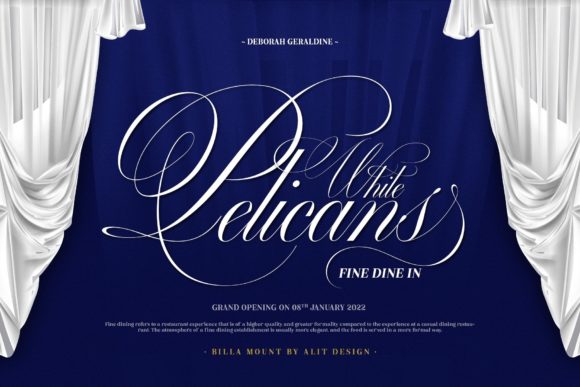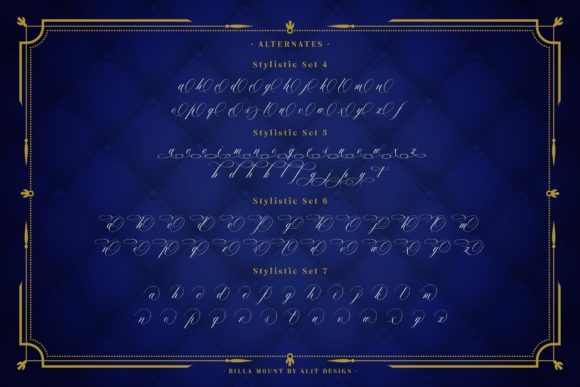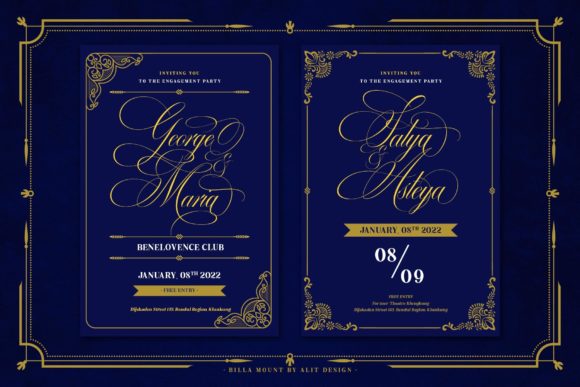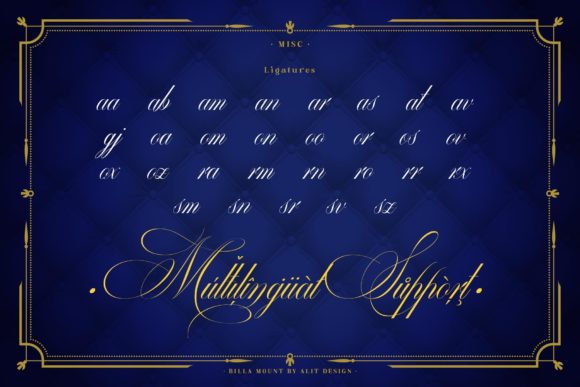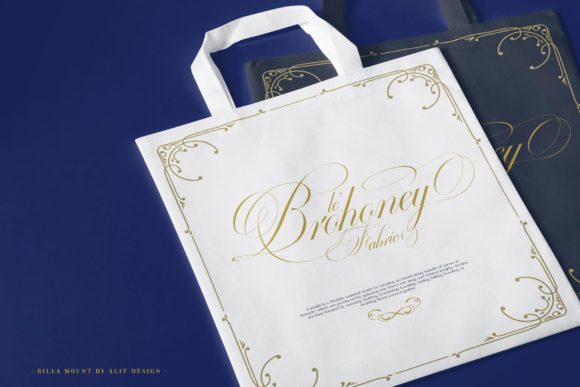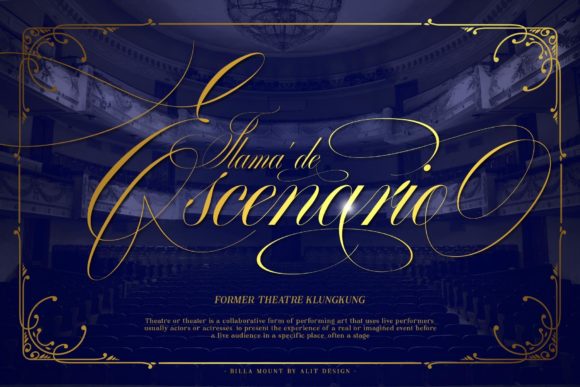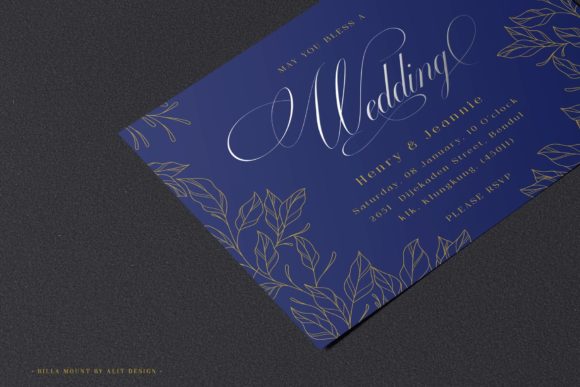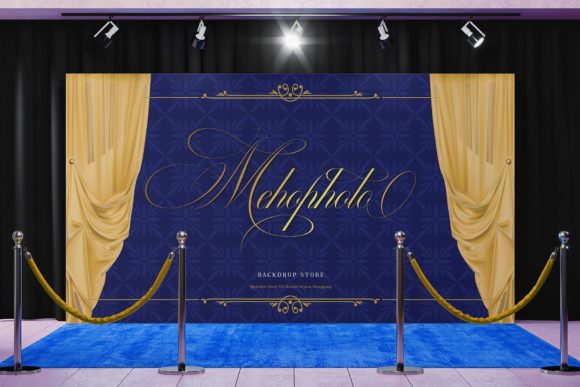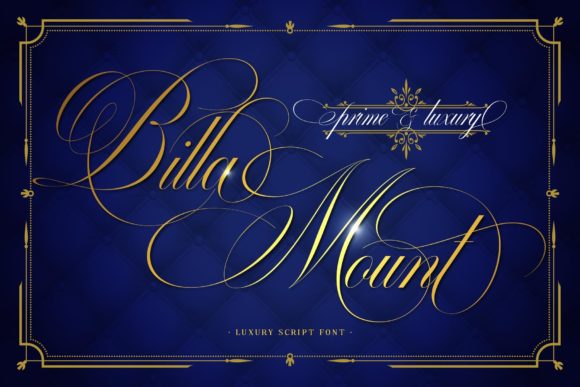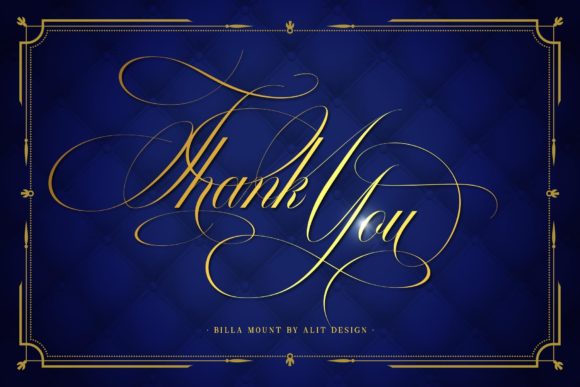
Billa Mount Font
About Billa Mount Font
Billa Mount is a luxurious and contemporary script font. Fall for its ravishing style and use it to create gorgeous designs. This font is PUA encoded which means you can access all glyphs and swashes with ease!